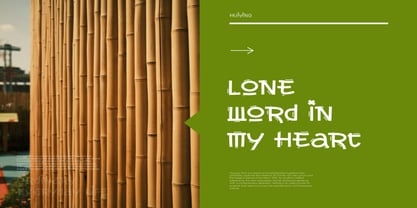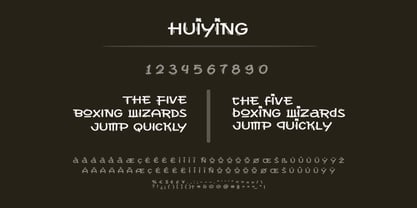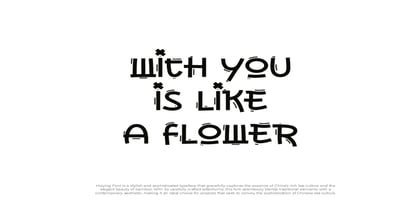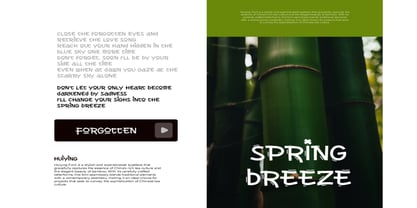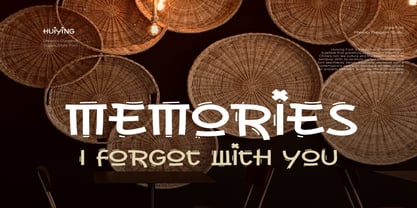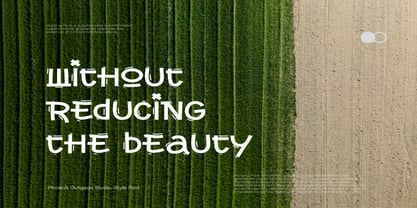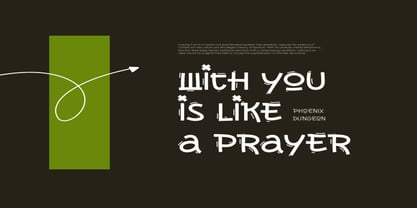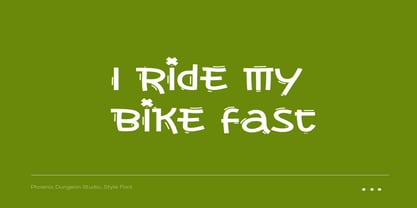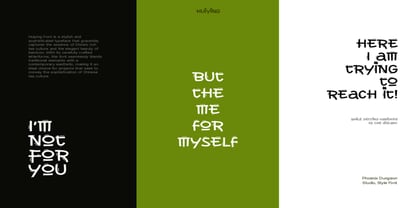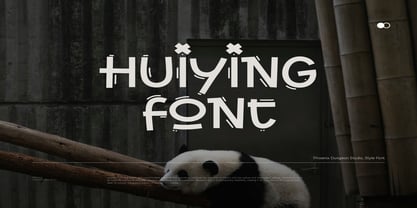
Huiying
by Phoenix Group
The Huiying Font Family was designed by Alif Naufal Muzakki and published by Phoenix Group. Huiying contains 1 styles. More about this family
Huiying Font is a stylish and sophisticated typeface that gracefully captures the essence of China's rich tea culture and the elegant beauty of bamboo. With its carefully crafted letterforms, this font seamlessly blends traditional elements with a contemporary aesthetic, making it an ideal choice for projects that seek to convey the sophistication of Chinese tea culture.
Designers: Alif Naufal Muzakki
Foundry: Phoenix Group